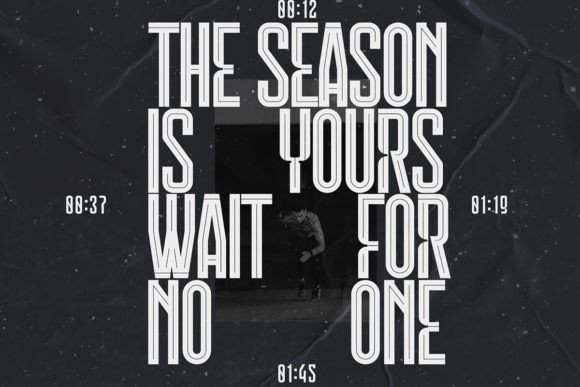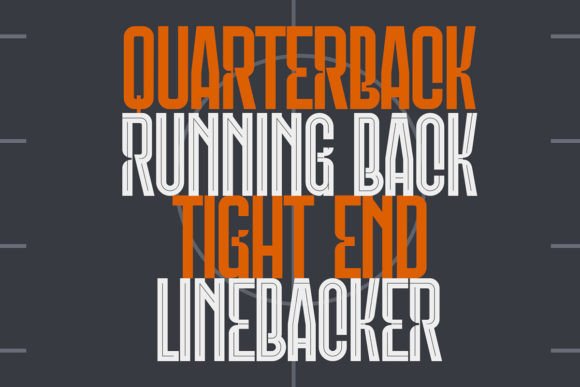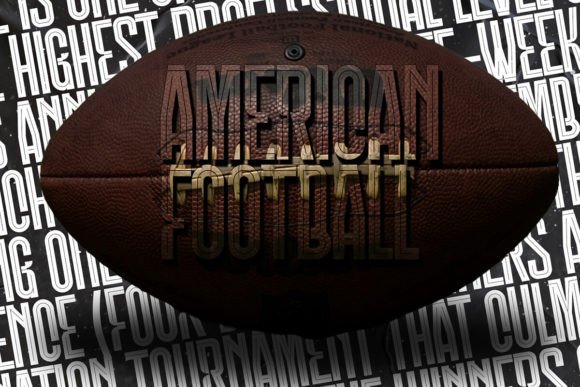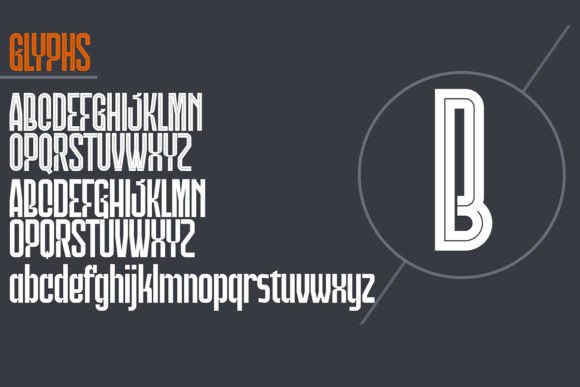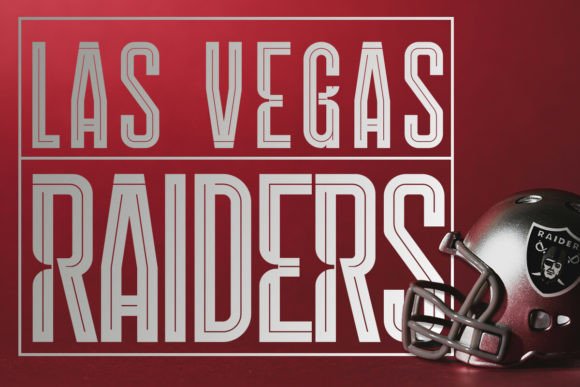
Introducing Besco Font: A Versatile Condensed Sans Serif Display Typeface
Are you a designer or crafter looking for a font that can elevate your creative projects? Look no further than Besco Font, a condensed sans serif display typeface that offers a wide range of styles and customization options. In this article, we’ll dive into the features and benefits of Besco Font, and explore how it can help take your designs to the next level.
What is Besco Font?
Besco Font is a carefully crafted condensed sans serif display typeface that is designed to provide maximum impact and legibility. The font family includes a variety of styles, making it perfect for use in a range of creative projects, from branding and advertising to packaging and signage.
Key Features of Besco Font
- Condensed sans serif design: Besco Font features a sleek and modern sans serif design that is perfect for headlines, titles, and short bursts of text.
- Multiple styles: The Besco Font family includes a range of styles, allowing you to choose the perfect look to match your project’s tone and personality.
- Over 500 stylized alternate glyphs: With Besco Font, you get access to a vast library of stylized alternate glyphs, giving you unparalleled creative control and customization options.
The Benefits of Using Besco Font
So why choose Besco Font for your design projects? Here are just a few benefits of using this versatile typeface:
- Flexibility: With its range of styles and customization options, Besco Font can be used in a wide range of creative projects, from digital designs to print materials.
- Legibility: The condensed sans serif design of Besco Font ensures that your text is easy to read, even at small sizes.
- Creativity: With over 500 stylized alternate glyphs at your fingertips, you can add a unique touch to your designs and make them stand out from the crowd.
Who Can Benefit from Besco Font?
Besco Font is perfect for a range of designers and crafters, including:
- Graphic designers: Whether you’re working on a branding project, creating social media graphics, or designing a website, Besco Font is a great choice.
- Crafters: If you’re a crafter who loves to create handmade cards, gift tags, or other paper crafts, Besco Font is a great addition to your design toolkit.
- Sign makers: The condensed sans serif design of Besco Font makes it perfect for use in signage and display projects.
Tips for Using Besco Font
Here are a few tips for getting the most out of Besco Font:
- Experiment with different styles: With its range of styles, Besco Font offers a lot of flexibility. Don’t be afraid to try out different looks to find the one that works best for your project.
- Use the alternate glyphs: The stylized alternate glyphs in Besco Font are a great way to add some personality to your designs. Experiment with different glyphs to find the ones that work best for your project.
- Keep it simple: While Besco Font offers a lot of customization options, it’s still a condensed sans serif font. Keep your design simple and clean to ensure maximum legibility.
| Font Name | Besco Font |
| Author | Lettercorner Studio |
In conclusion, Besco Font is a versatile and powerful typeface that offers a wide range of styles and customization options. With its condensed sans serif design and over 500 stylized alternate glyphs, Besco Font is perfect for designers and crafters who want to create professional-looking designs with a unique touch. Whether you’re working on a branding project, creating social media graphics, or designing a website, Besco Font is a great choice.